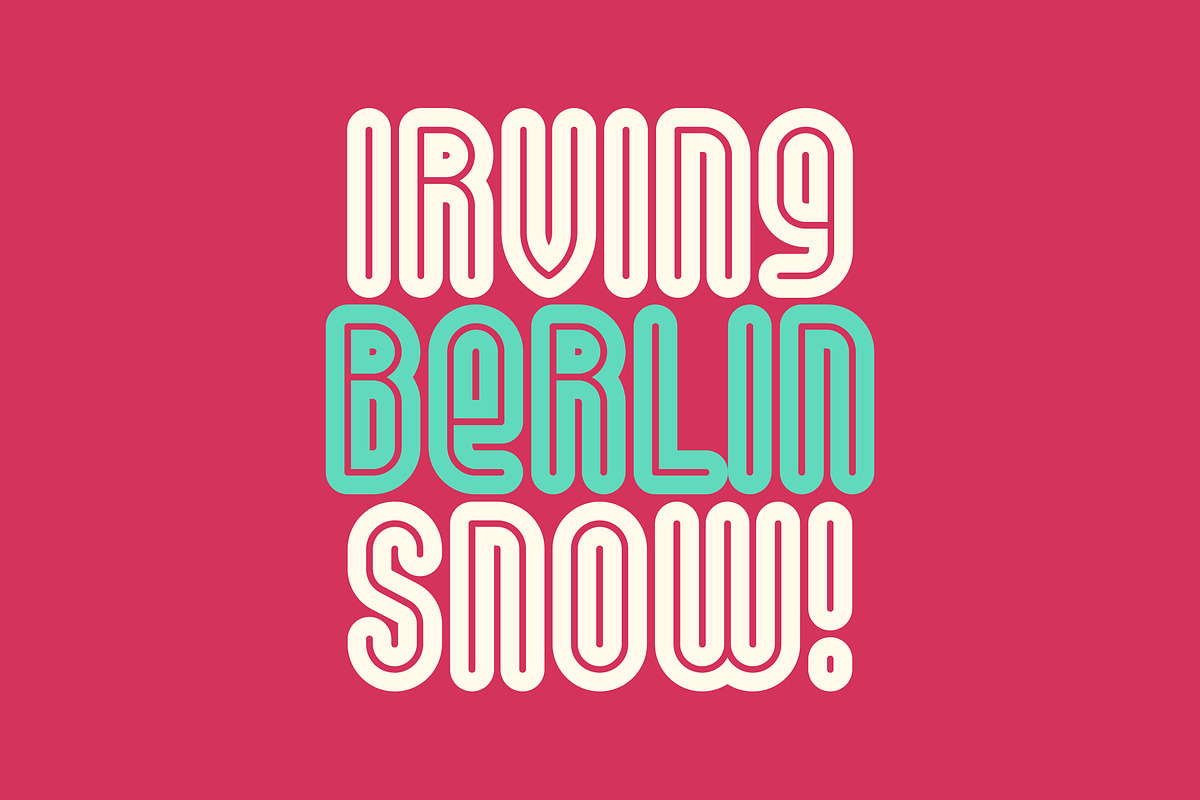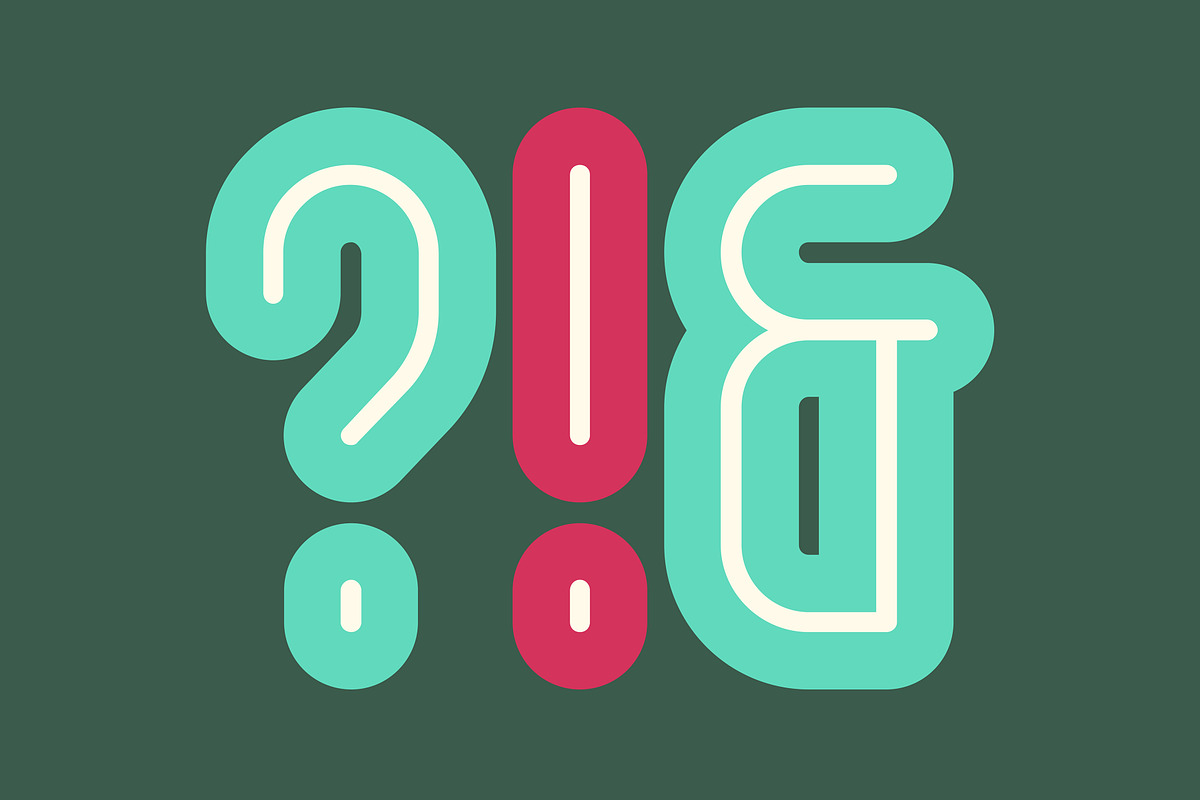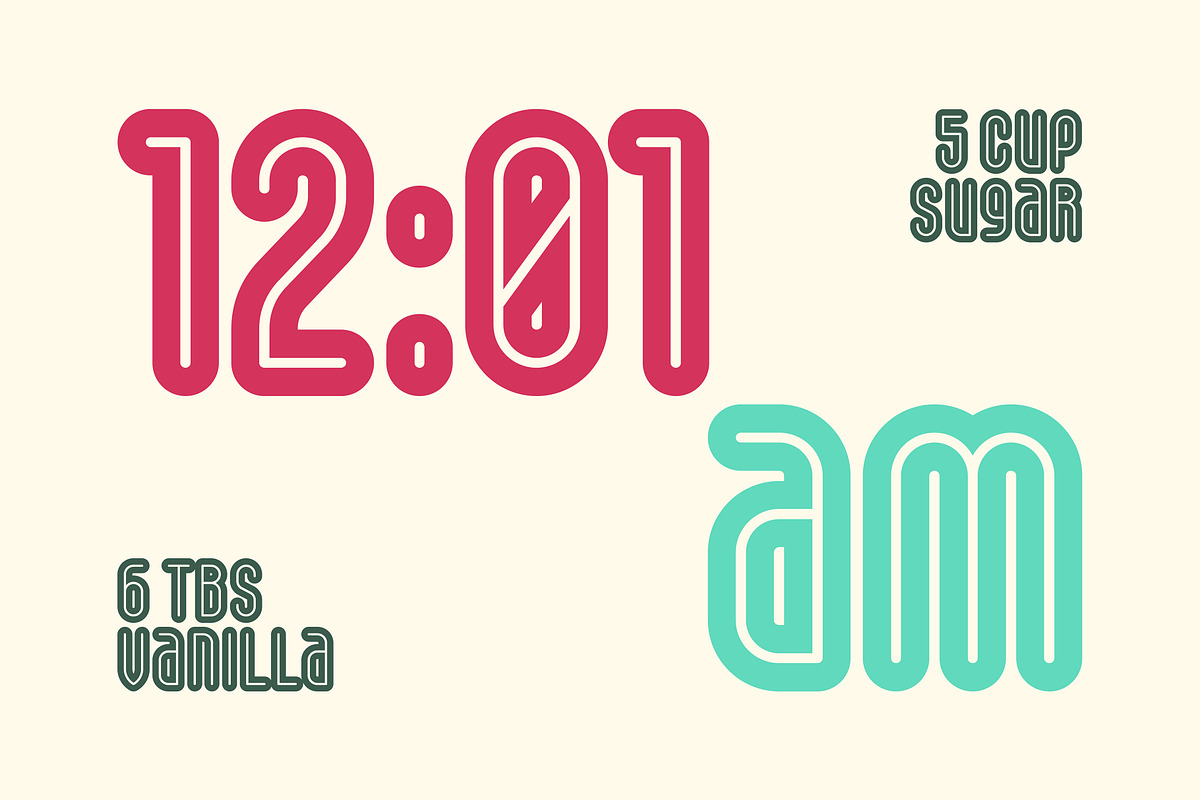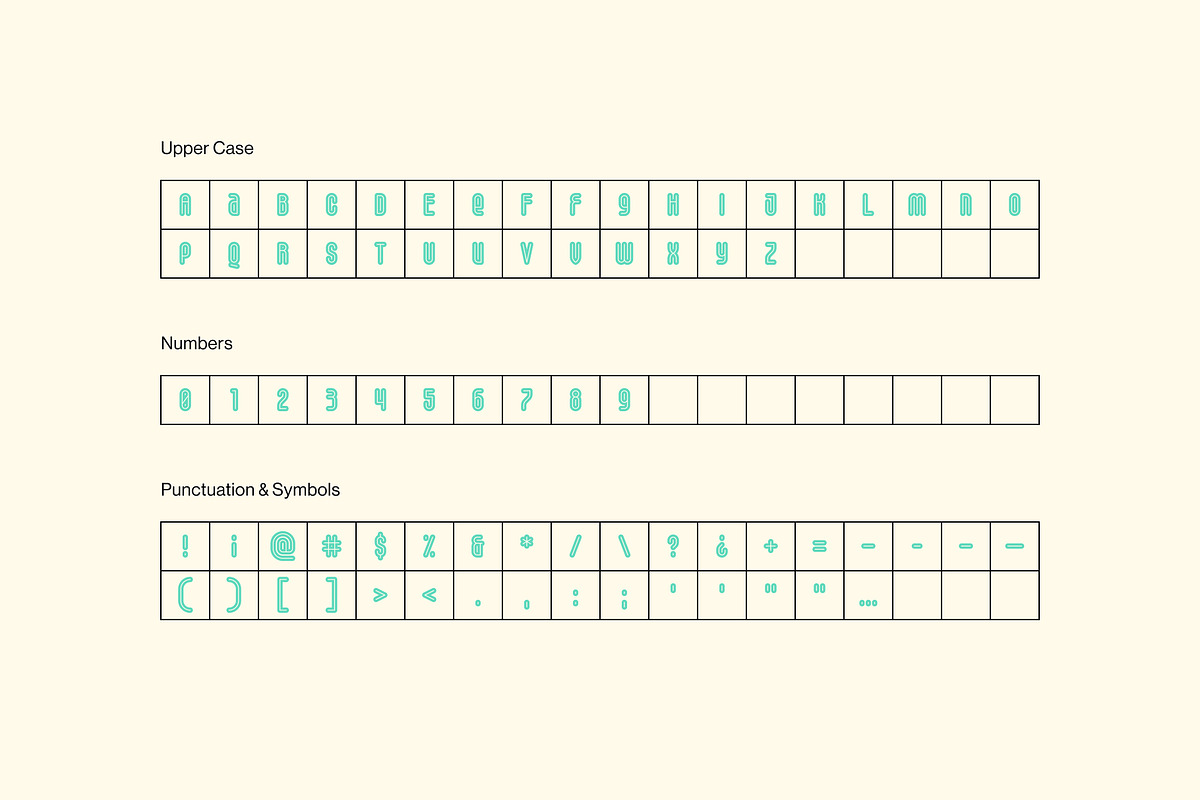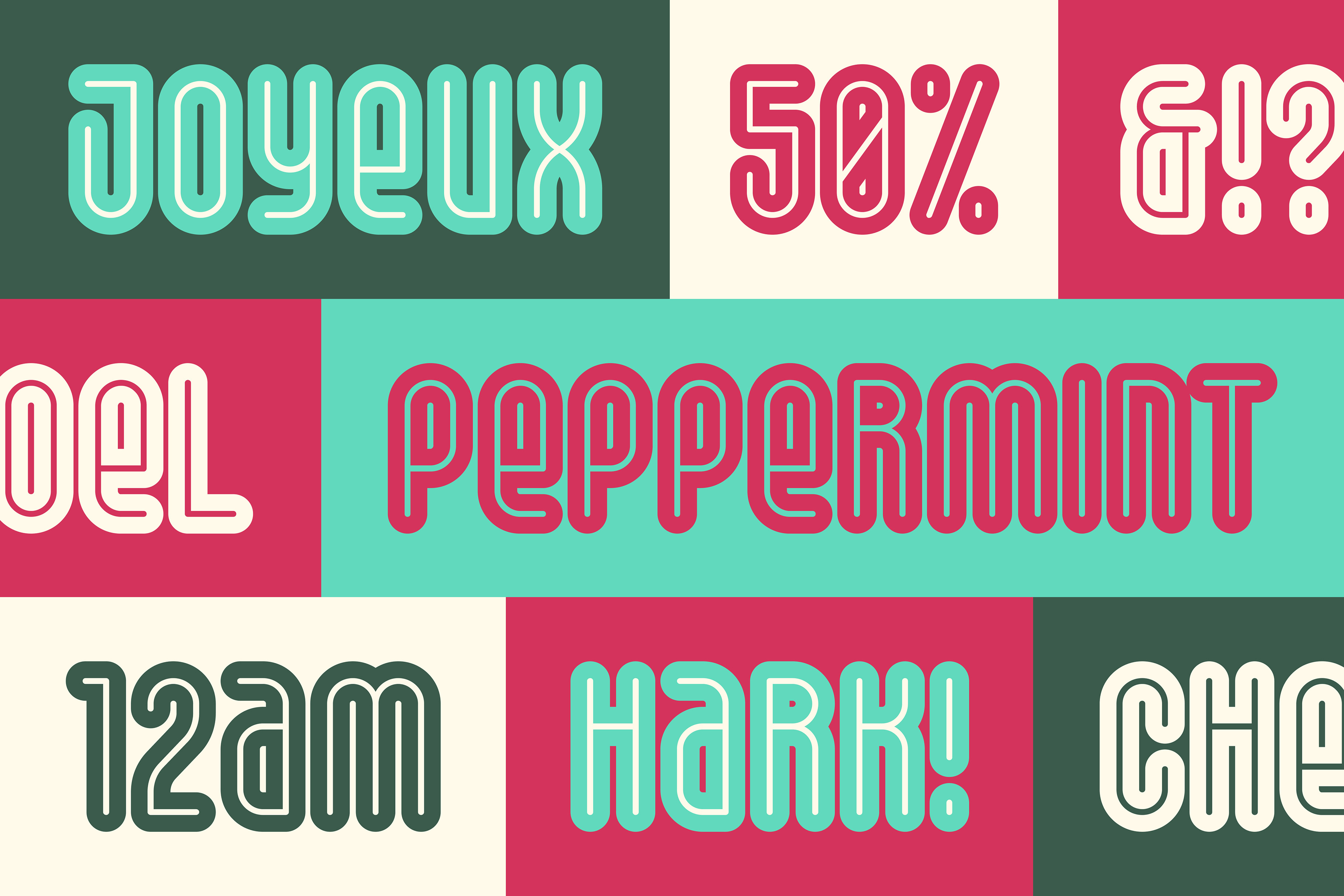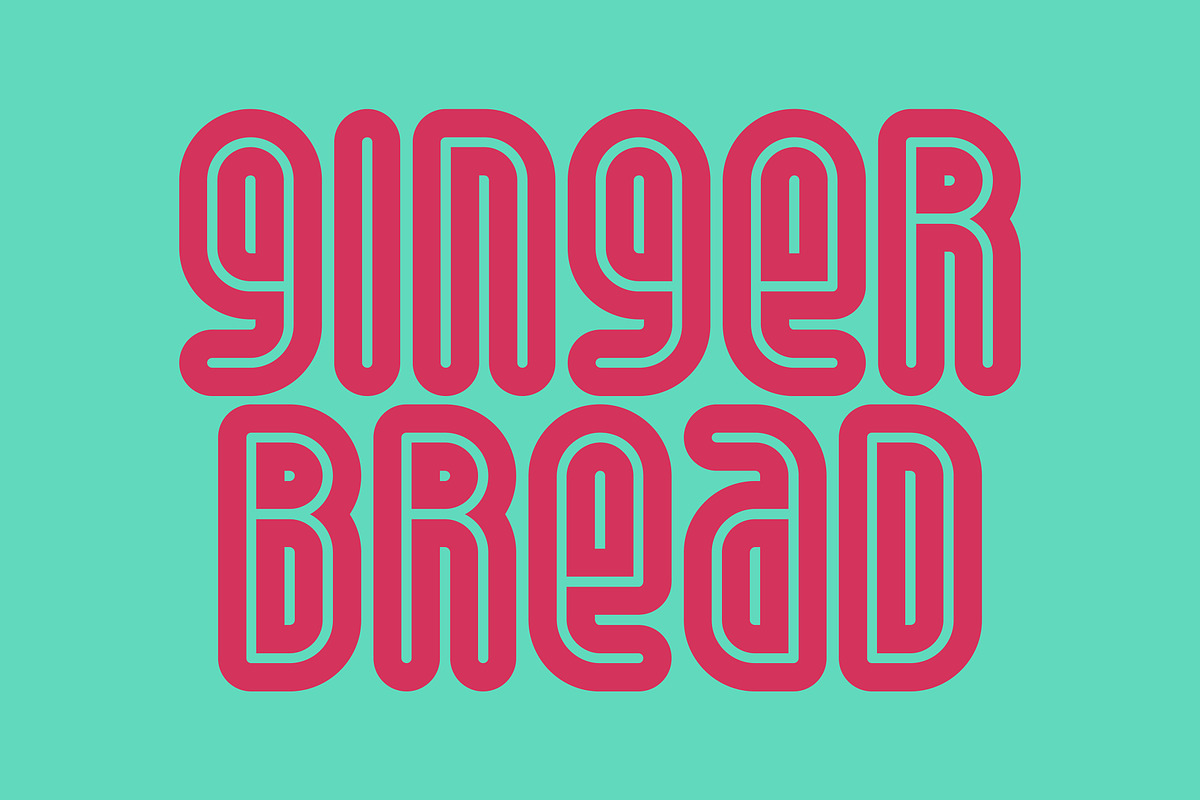
JOYEUX Font
Joyeux is a rounded, inline, monoweight, headline font ready to host any holiday soiree. Joyeux comes with uppercase, some lowercase, numbers, punctuation, and special characters.